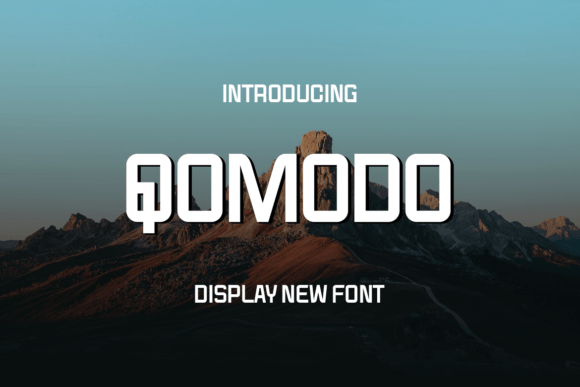
Welcome to the world of Qomodo, a font that breathes life into your designs like no other. Step into a realm where creativity flourishes and uniqueness dances at your fingertips. Qomodo isn't just a font; it's a gateway to a world of vintage charm and modern elegance.
With Qomodo, you'll embark on a nostalgic journey through time, where every letter carries a story, every word whispers a tale. Qomodo's bold and authentic sans serif strokes evoke a sense of history and tradition, making it the perfect canvas for expressing your vintage design ambitions.
Unleash your imagination and let Qomodo's versatility guide you through a world of possibilities. Whether you're designing a striking logo for your vintage clothing store, a timeless t-shirt design inspired by the past, or creating a gripping esports logo that captures the spirit of old-school gaming, Qomodo is your trusty companion.
Dive into the world of typography with Qomodo and discover a font that not only elevates your designs but also captivates and enchants your audience. Qomodo is the epitome of timeless beauty, a tribute to the past that's perfectly in harmony with the present.